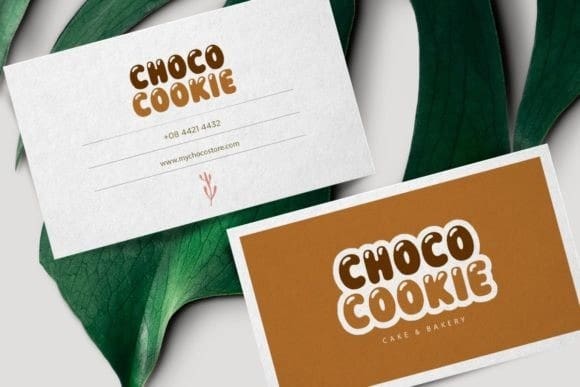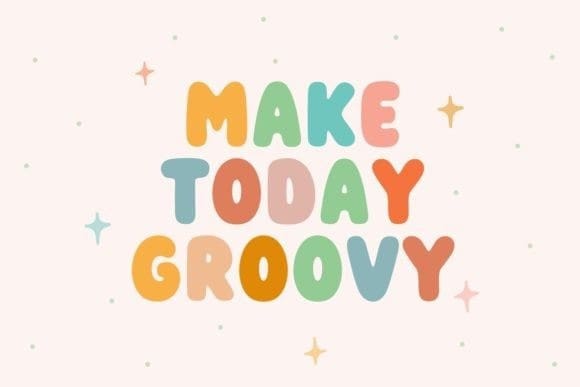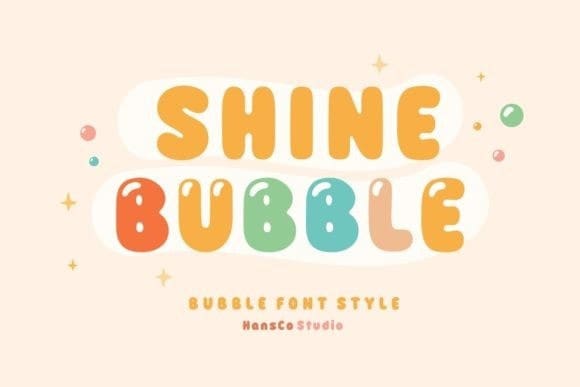
Shine Bubble Font
Shine Bubble Font is a fun and playful display font. Cheerful, bubbly, and friendly, this font will brighten up each of your designs!